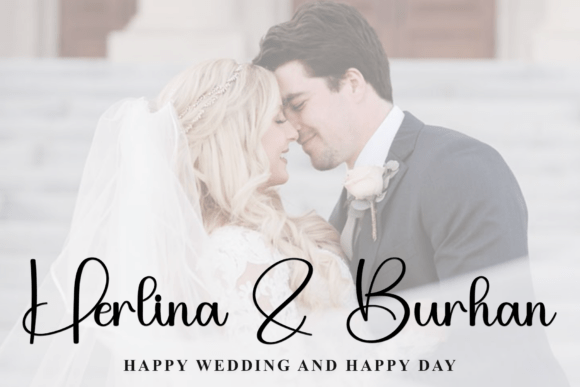
Lighting Font: A Casual and Creative Typeface for Your Design Needs
When it comes to creating visually appealing designs, the right font can make all the difference. If you’re looking for a typeface that exudes warmth and friendliness, look no further than the Lighting Font. This casual and creative font is perfect for personal projects, invitations, social media graphics, and more. In this article, we’ll explore the unique features of the Lighting Font and how it can elevate your designs.
What is Lighting Font?
Lighting Font is a charming, hand-drawn typeface that features round, playful strokes. Its relaxed and approachable feel makes it ideal for designs that require a personal touch. The font’s unique aesthetic adds a fun and unique touch to any design, making it perfect for creative projects.
One of the standout features of the Lighting Font is its standard PUA Encoded glyphs. This means that the font is equipped with a wide range of characters and symbols that can be used in various design applications. Whether you’re working with Adobe Photoshop, Corel, Adobe Illustrator, Canva, or other design software, the Lighting Font is compatible and easy to use.
Key Features of Lighting Font
- Casual and creative design: The Lighting Font features a unique, hand-drawn aesthetic that adds a personal touch to any design.
- Round, playful strokes: The font’s round strokes create a relaxed and approachable feel, perfect for personal projects and social media graphics.
- Standard PUA Encoded glyphs: The font includes a wide range of characters and symbols, making it compatible with various design applications.
Creative Ways to Use Lighting Font
The Lighting Font is a versatile typeface that can be used in a variety of design projects. Here are some creative ways to use this font:
- Personal projects: Use the Lighting Font to add a personal touch to your personal projects, such as photo albums, scrapbooking, and more.
- Invitations: The font’s casual and creative design makes it perfect for invitations, such as birthday parties, baby showers, and weddings.
- Social media graphics: Use the Lighting Font to create eye-catching social media graphics, such as Facebook posts, Instagram stories, and more.
- Branding and packaging: The font’s unique aesthetic makes it suitable for branding and packaging design, adding a touch of personality to your products.
Design Tips for Using Lighting Font
To get the most out of the Lighting Font, here are some design tips to keep in mind:
- Pair with complementary fonts: Combine the Lighting Font with complementary fonts to create visual interest and hierarchy.
- Use contrasting colors: Use contrasting colors to make your design stand out and ensure the text is readable.
- Experiment with sizes and styles: Play around with different font sizes and styles to add visual interest to your design.
Benefits of Using Lighting Font
The Lighting Font offers several benefits for designers and non-designers alike. Here are some of the advantages of using this font:
- Unique and creative design: The Lighting Font features a unique and creative design that sets it apart from other typefaces.
- Versatile: The Lighting Font can be used in a variety of design projects, from personal projects to commercial designs.
In conclusion, the Lighting Font is a casual and creative typeface that exudes warmth and friendliness. Its unique, hand-drawn aesthetic makes it perfect for personal projects, invitations, social media graphics, and more. With its standard PUA Encoded glyphs and compatibility with various design applications, the Lighting Font is a versatile and easy-to-use font that’s perfect for designers and non-designers alike.